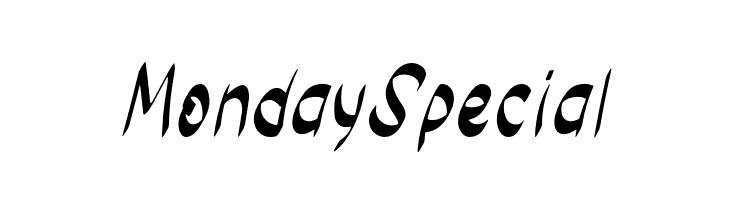
A dynamic, cursive font with expressive, fluid strokes.
A playful and elegant handwritten script font with smooth, flowing strokes.
A dynamic italic script font with expressive brush strokes and a modern flair.
A lively, flowing script font with a modern, handwritten style.
A bold, expressive handwritten font with dynamic strokes and a lively appearance.
A bold, expressive handwritten font with fluid strokes and a modern feel.
A lively and expressive handwritten font with fluid strokes and a modern aesthetic.
A bold, rounded, and playful font with smooth curves and thick strokes.
An elegant, fluid script font with graceful cursive strokes.